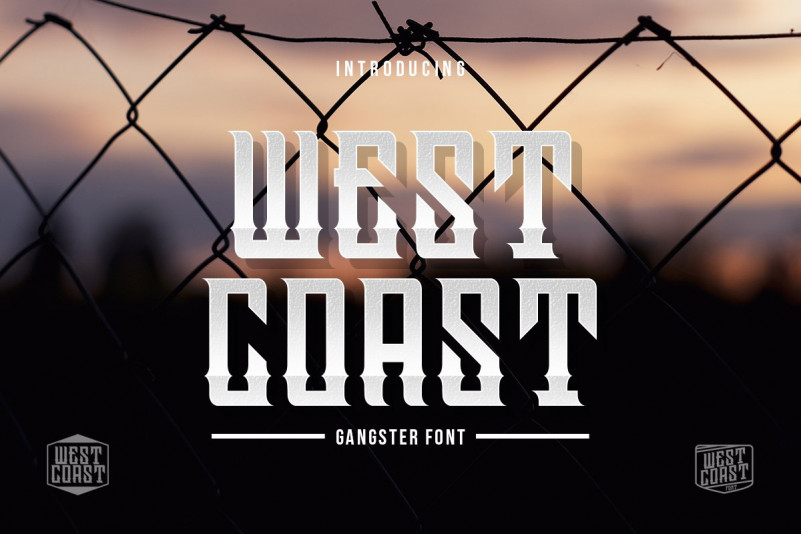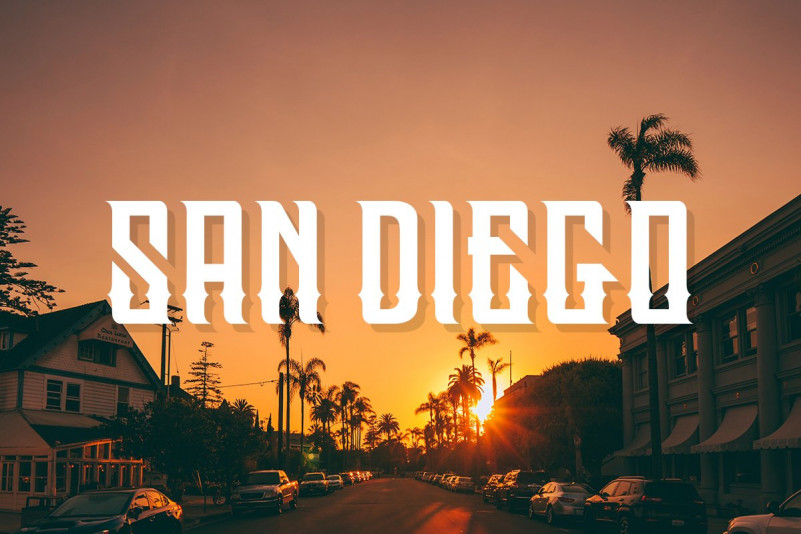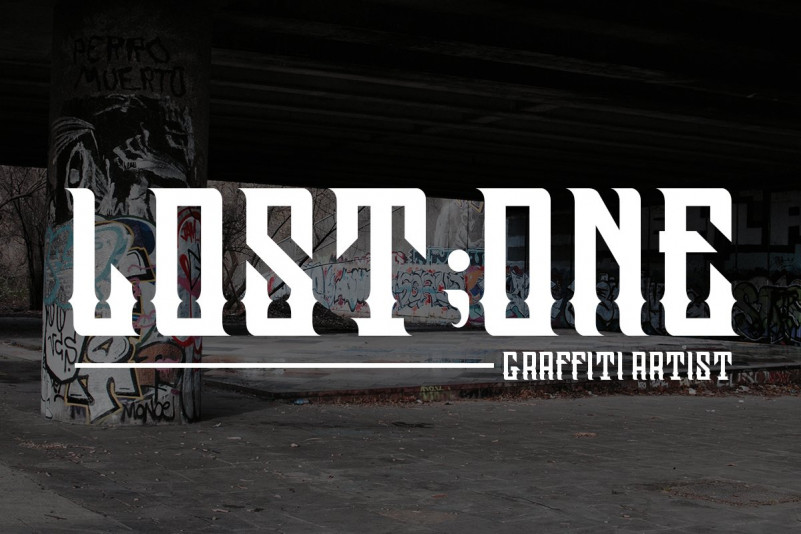
Westcoast Font
Introducing of our new product the name Westcoast font. Gangster font perfect for tattoo design, logo studio tattoo, shirt design,poster, branding, etc.